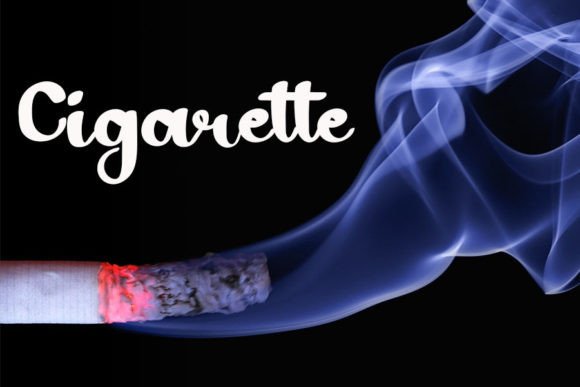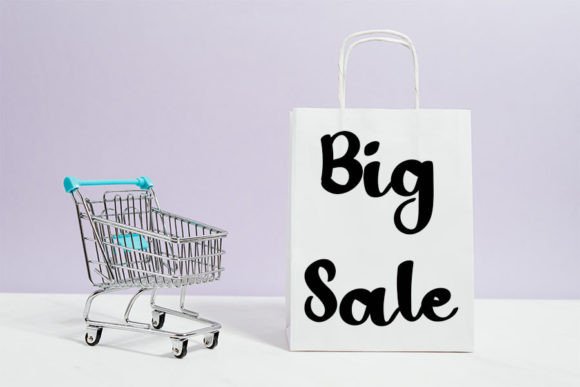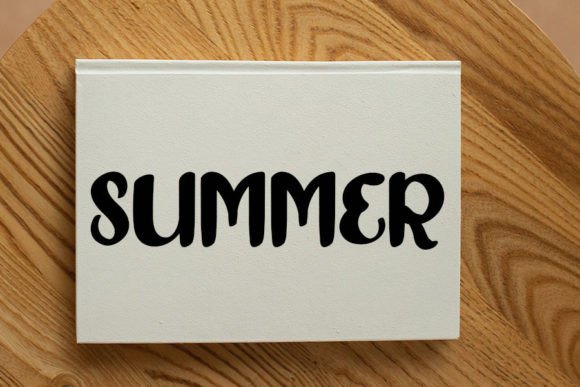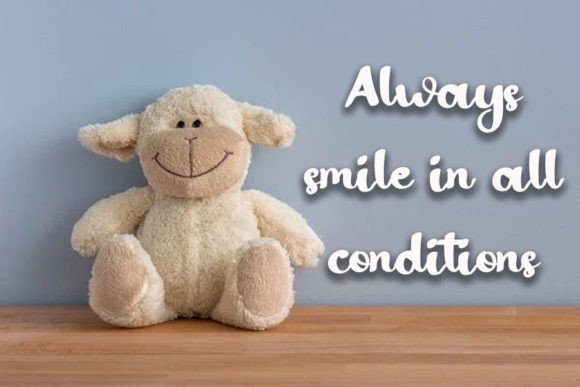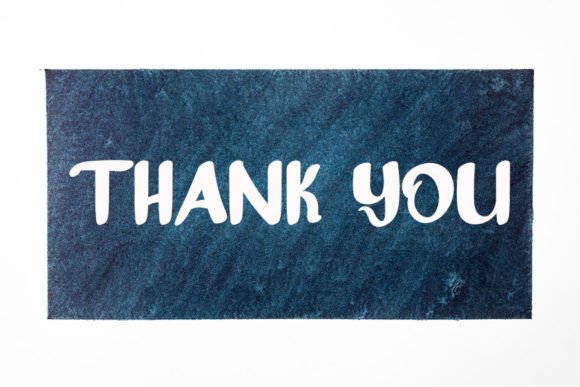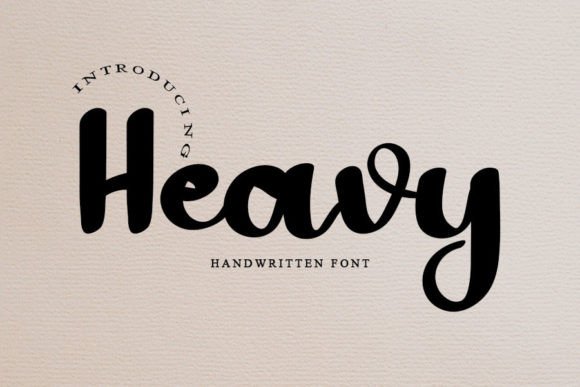
Introducing Heavy Font: The Magical Handwritten Font for Elegant Designs
Are you a designer or crafter looking for a unique and elegant font to elevate your projects? Look no further than Heavy Font, a magical handwritten font that combines cleanliness and quirkiness. In this article, we’ll dive into the features and benefits of Heavy Font, and explore how it can be the perfect fit for your logos, branding, social media, and DIY projects.
What is Heavy Font?
Heavy Font is a carefully crafted handwritten font that exudes elegance and sophistication. With its clean lines and subtle quirks, this font is designed to add a touch of magic to your designs. Whether you’re creating a logo, branding materials, or social media graphics, Heavy Font is the perfect choice for designers and crafters who want to make a statement.
Key Features of Heavy Font
- Handwritten with love: Heavy Font is a handwritten font that is carefully crafted with attention to detail, giving it a personal and unique touch.
- Elegant and clean: With its clean lines and simple design, Heavy Font is perfect for creating elegant and sophisticated designs.
- Quirky and playful: Heavy Font also has a playful side, with subtle quirks and imperfections that add character to your designs.
- Versatile: Heavy Font is a versatile font that can be used for a wide range of projects, from logos and branding to social media graphics and DIY crafts.
Benefits of Using Heavy Font
So why choose Heavy Font for your designs? Here are just a few benefits of using this magical handwritten font:
- Stand out from the crowd: With Heavy Font, you can create designs that stand out from the crowd and grab attention.
- Add a personal touch: The handwritten nature of Heavy Font adds a personal touch to your designs, making them feel more approachable and relatable.
- Easy to read: Despite its elegant and cursive nature, Heavy Font is easy to read and understand, making it perfect for body text and headlines.
- Scalable: Heavy Font is designed to be scalable, so you can use it for a wide range of projects, from business cards to billboards.
How to Use Heavy Font in Your Designs
Heavy Font is a versatile font that can be used in a wide range of designs. Here are a few ideas to get you started:
- Logos and branding: Use Heavy Font to create a unique and memorable logo that reflects your brand’s personality.
- Social media graphics: Add a touch of elegance and sophistication to your social media graphics with Heavy Font.
- DIY crafts: Use Heavy Font to add a personal touch to your DIY crafts, such as handmade cards, gift tags, and more.
- Packaging design: Use Heavy Font to create eye-catching packaging designs that stand out on store shelves.
In conclusion, Heavy Font is a magical handwritten font that is perfect for designers and crafters who want to add a touch of elegance and sophistication to their designs. With its clean lines, subtle quirks, and versatile nature, Heavy Font is the perfect fit for a wide range of projects, from logos and branding to social media graphics and DIY crafts. So why not give Heavy Font a try and see how it can elevate your designs?